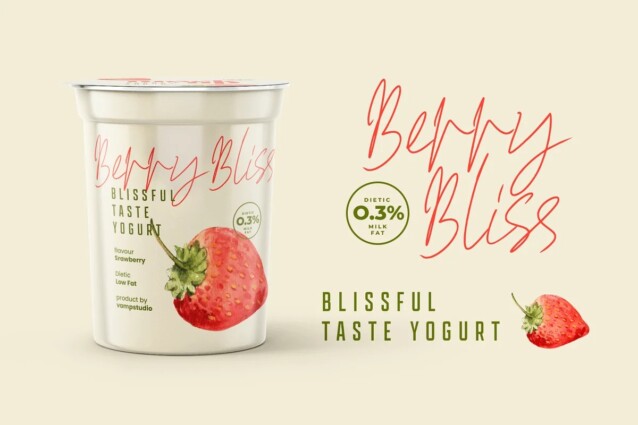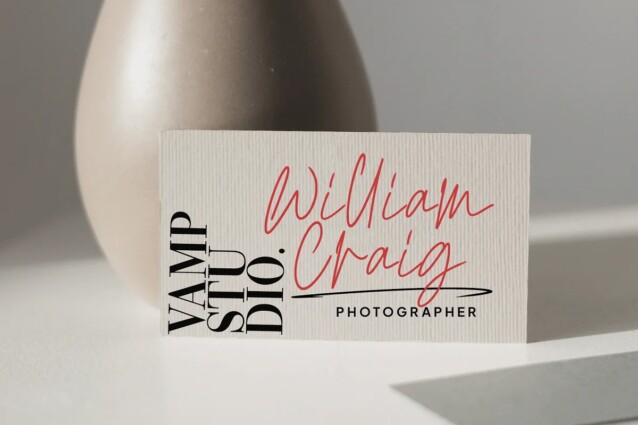
Risling Font
Risling Font it is a calligraphy chick font with exquisite accents. Made from font designer named Vampstudio. This font looks elegant, natural, stylish and perfect for any awesome projects that need handwriting taste.
Risling would perfect for photography, watermark, social media posts, advertisements, logos & branding, invitation, product designs, label, stationery, wedding designs, product packaging, special events or anything that need handwriting taste.